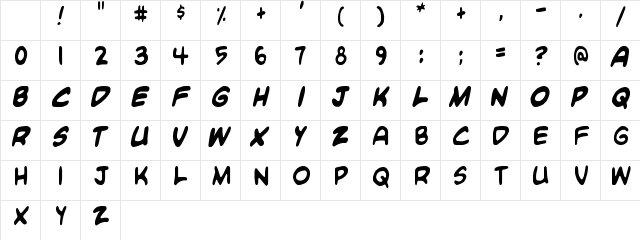
Complete Blambot Custom Regular glyph index. Displaying only characters natively supported by Blambot Custom Regular font.
Blambot Custom is a composed and adaptable typeface that performs quietly and consistently across a wide range of design contexts.